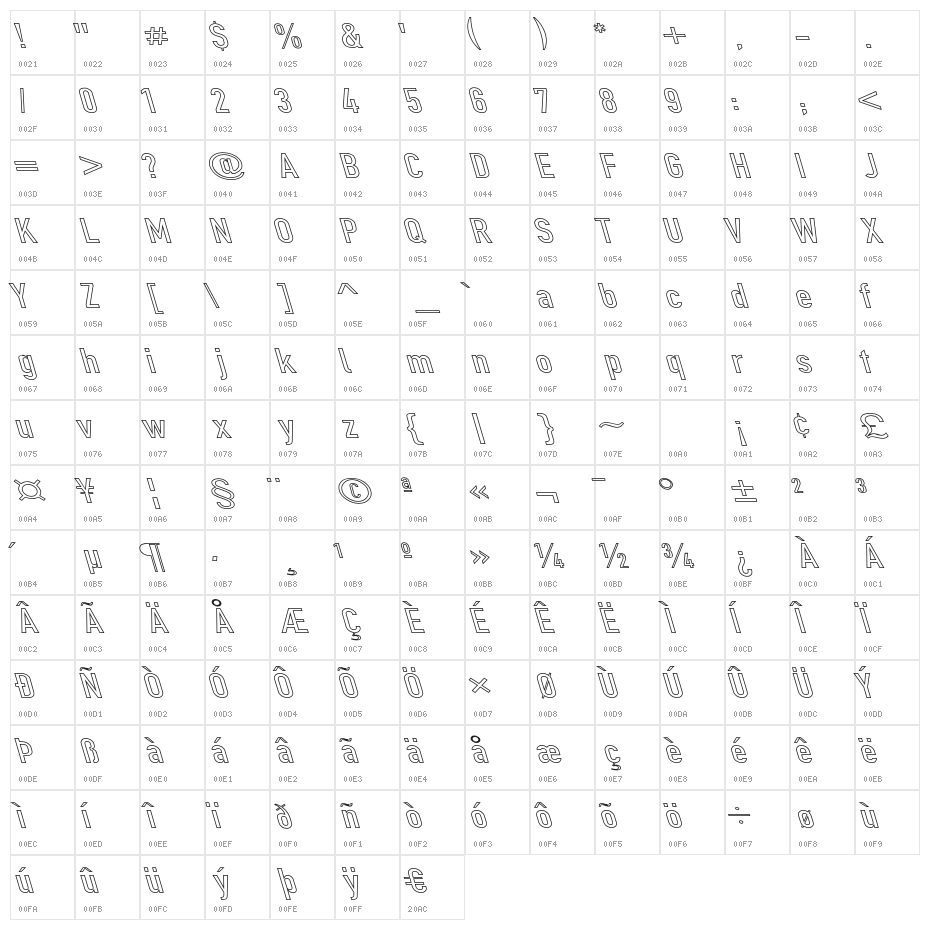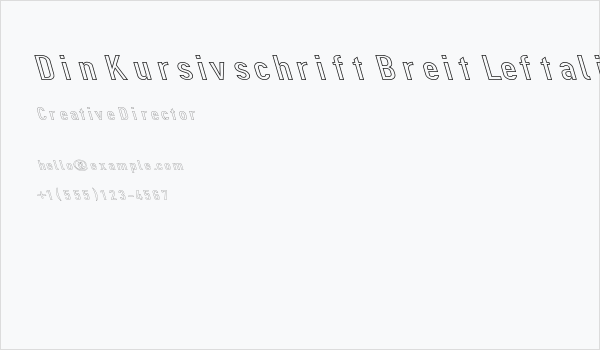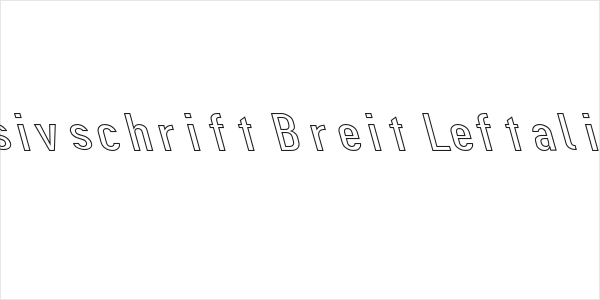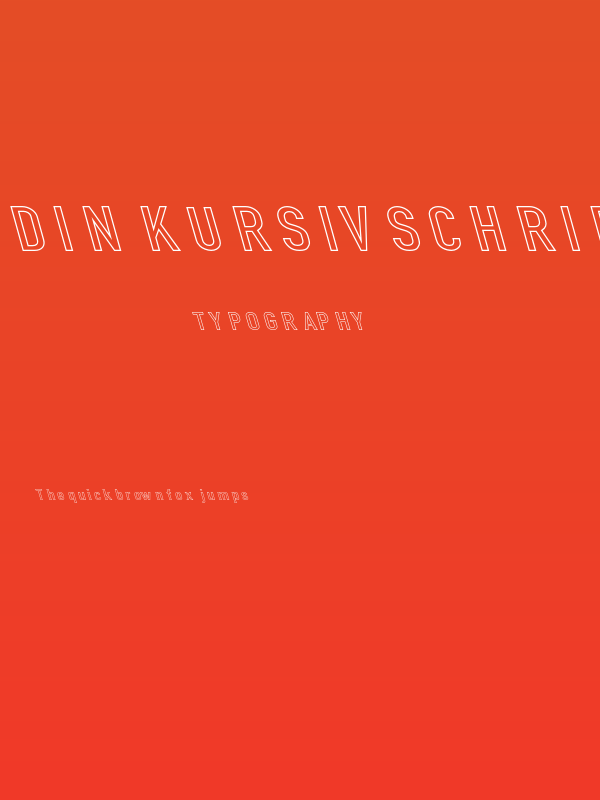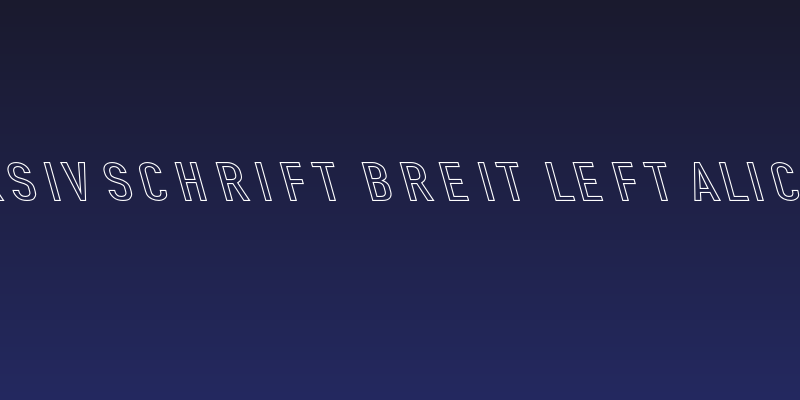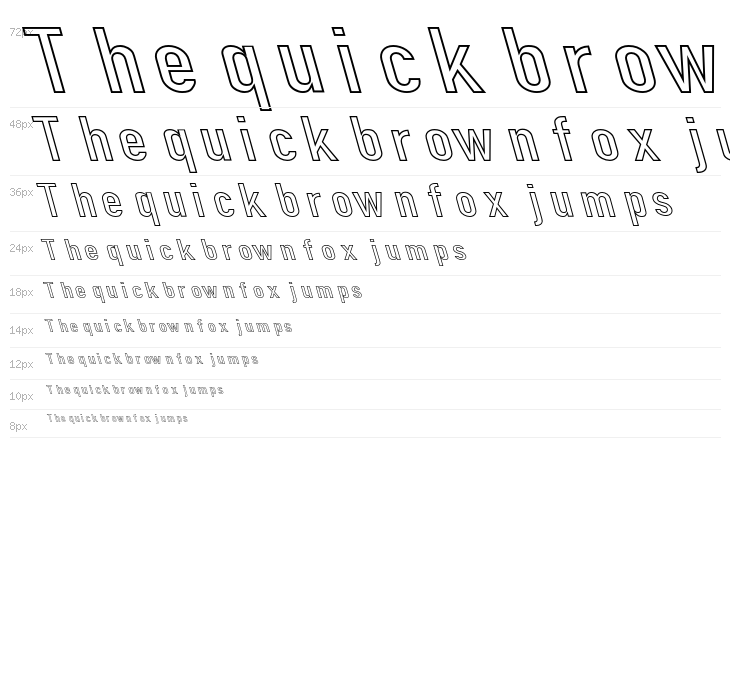
Din Kursivschrift Breit Leftalic Ghost Font
Din Kursivschrift Breit Leftalic Ghost Description
This font features a unique blend of modern and classic styles, characterized by its outlined, italicized letters that lean to the left. The uppercase and lowercase letters maintain a consistent width, giving it a uniform appearance. The numerals and special characters follow the same stylistic approach, ensuring a cohesive look across all glyphs. The font's open design and clear lines make it highly legible, while the italic slant adds a dynamic and forward-moving feel. Its geometric structure is both clean and sophisticated, suitable for various design applications.
| Proposed Projects | Ideal for modern branding, editorial design, posters, and digital media where a contemporary and dynamic look is desired. |